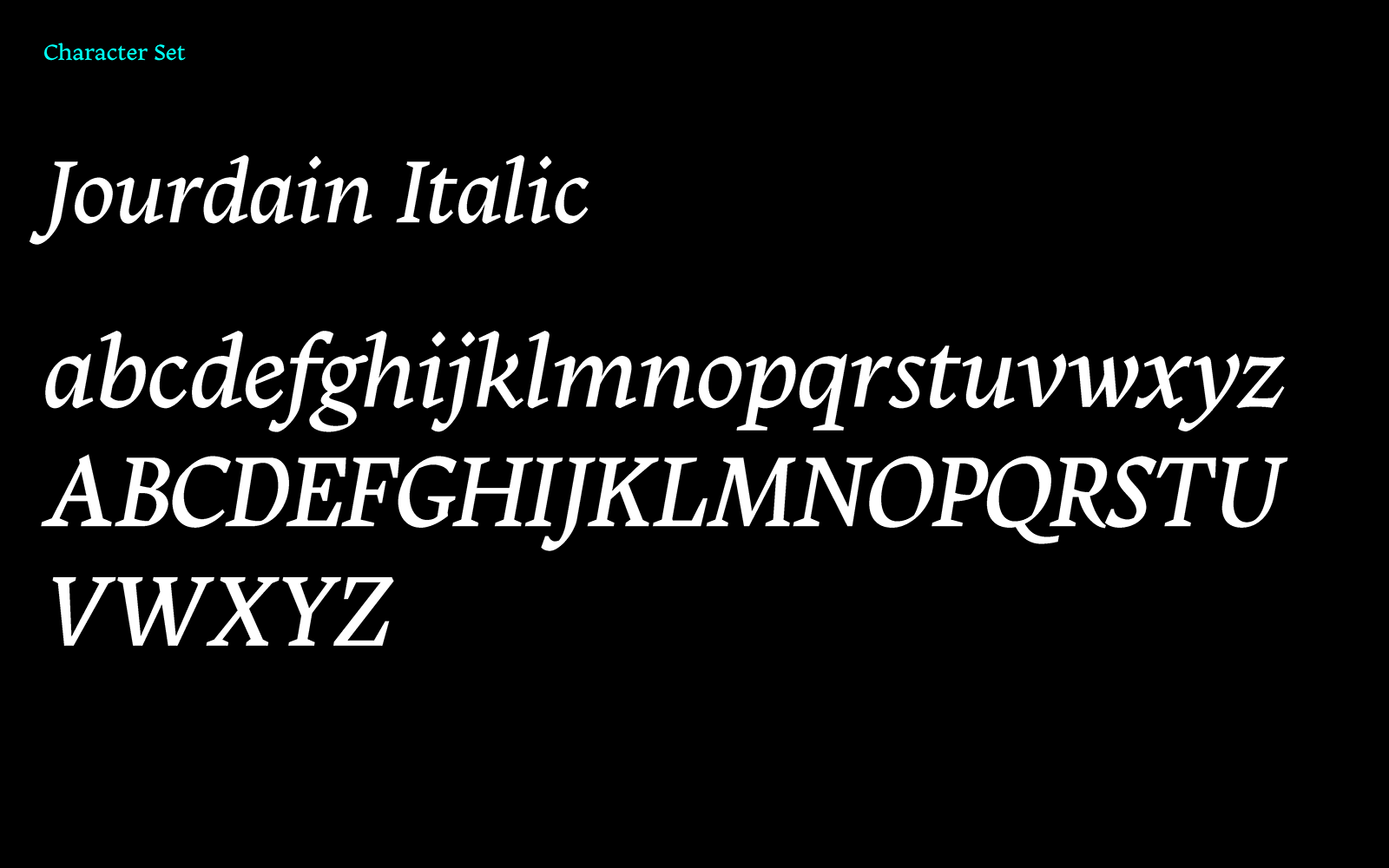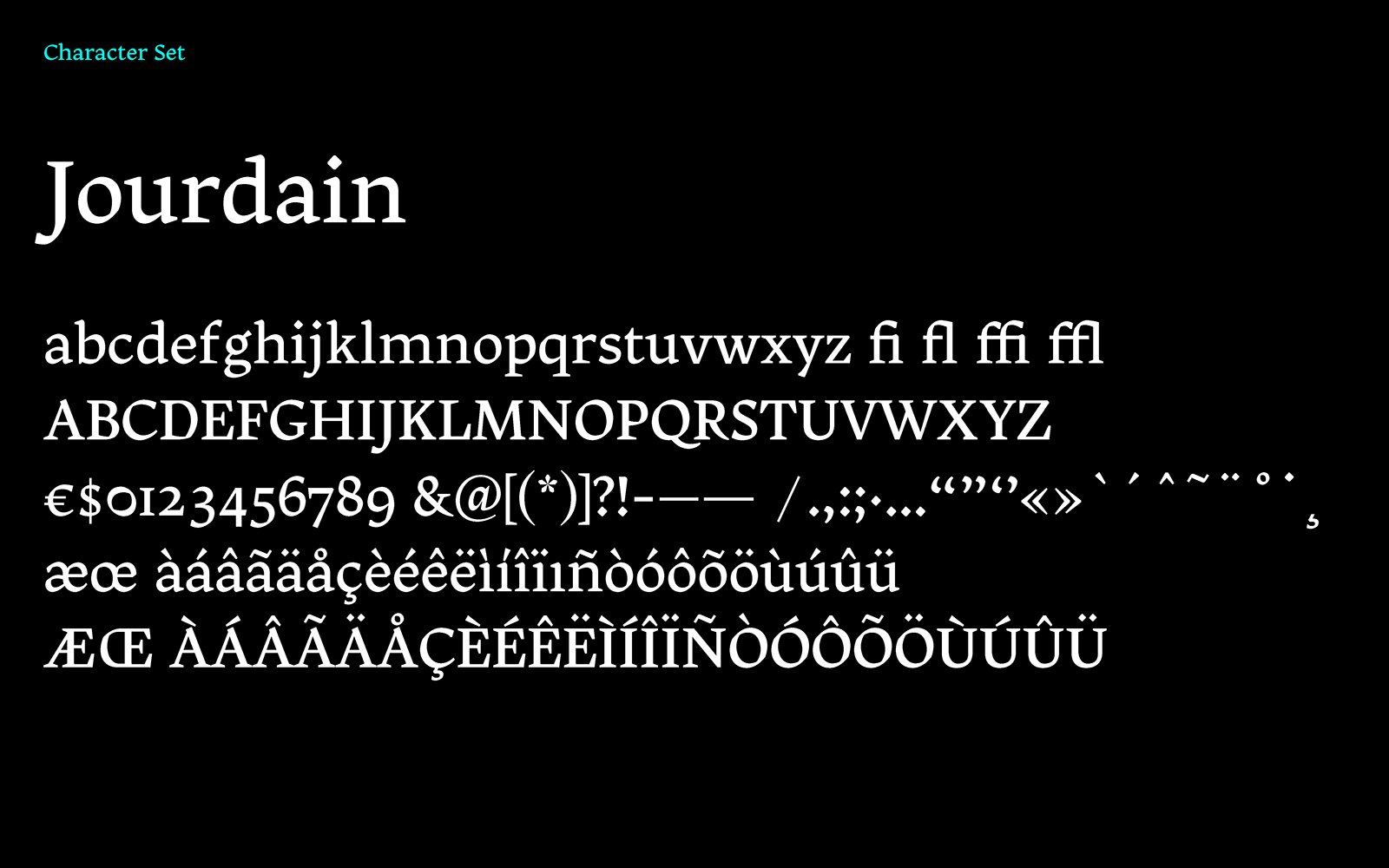
Jourdain
Jourdain is a text Typeface designed under the guidance of Jean François Porchez, Mathieu Réguer, Julien Priez, Xavier Dupré and Stéphane Elbaz. It started with calligraphic exercises and experimentation with tracing paper.
The result from these exercises is the sharp counters that give all the character to the typeface. It also defines some key features of the typeface such as the straight edges of the serifs and the flattened upstrokes. The low contrast makes Jourdain ideal for small size text. Careful attention to detail was put into the italics to ensure a good harmony with the upright romans.
Jourdain supports basic latin languages. It also contains stylistic features such as old style numerals, ligatures and additional weights including medium, bold and black.